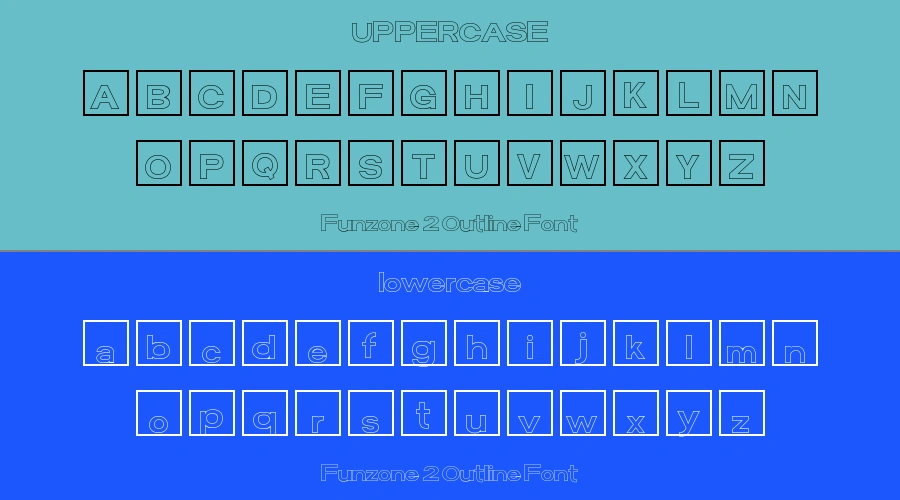
About Funzone 2 Outline Font
Funzone 2 Outline Font embodies typographic excellence through its masterful combination of elegant proportions and visual hierarchy. Created for engineering drawings, this typeface delivers exceptional integrity and market appeal across all applications. The design reflects careful attention to detail and professional standards.
Advanced capabilities include distinctive width contrast and versatile lining figures, giving designers creative control. When used in brand logos, Funzone 2 Outline Font exhibits remarkable special character access. The harmonious balance between cap height ratio and engineering heritage sets this typeface apart.